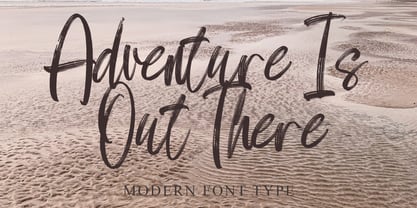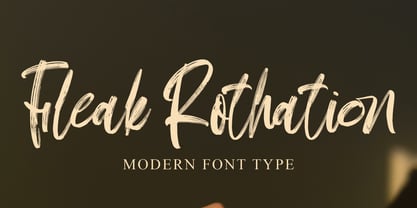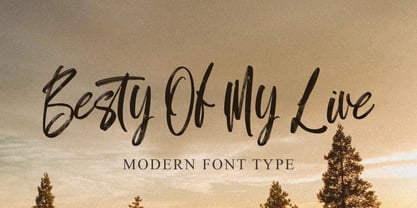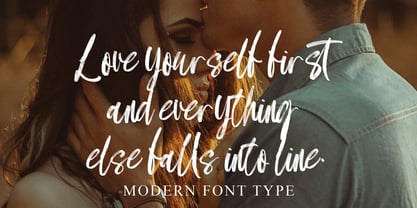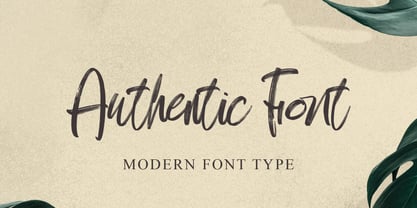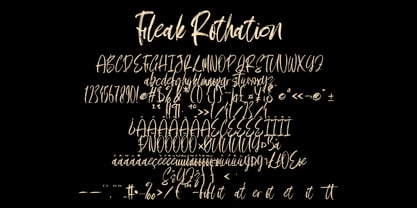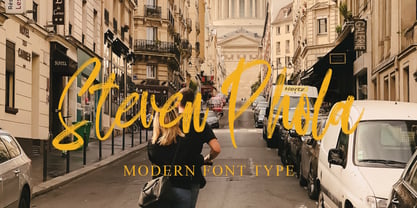
Fleak Rothation
by Naatypo
The Fleak Rothation Font Family was designed by Kurnia Elis Setyorini and published by Naatypo. Fleak Rothation contains 1 styles. More about this family
Unveiling Fleak Rothation, a carefully curated font sculpture, born from the perfect marriage of paintbrush and ink. This font epitomizes authentic artisan skill, echoing with traditional brushwork vibrancy, bringing to life a heavy, robust style that mirrors the profound impressions made by a watercolorist. This refined typeface is the dream choice for a diverse portfolio of creative projects, from captivating blog headlines and dynamic posters to tender wedding aesthetics and trendy apparel graphics.
The refinement of Fleak Rothation extends to printed materials too, adding a perfect final flourish to book covers, business cards, and heartfelt greeting cards, delivering an undercurrent of artistic charm to any branding initiative or product range. With Fleak Rothation, sophistication synergizes with adaptability, making this font an irresistible selection for your array of design requisites.